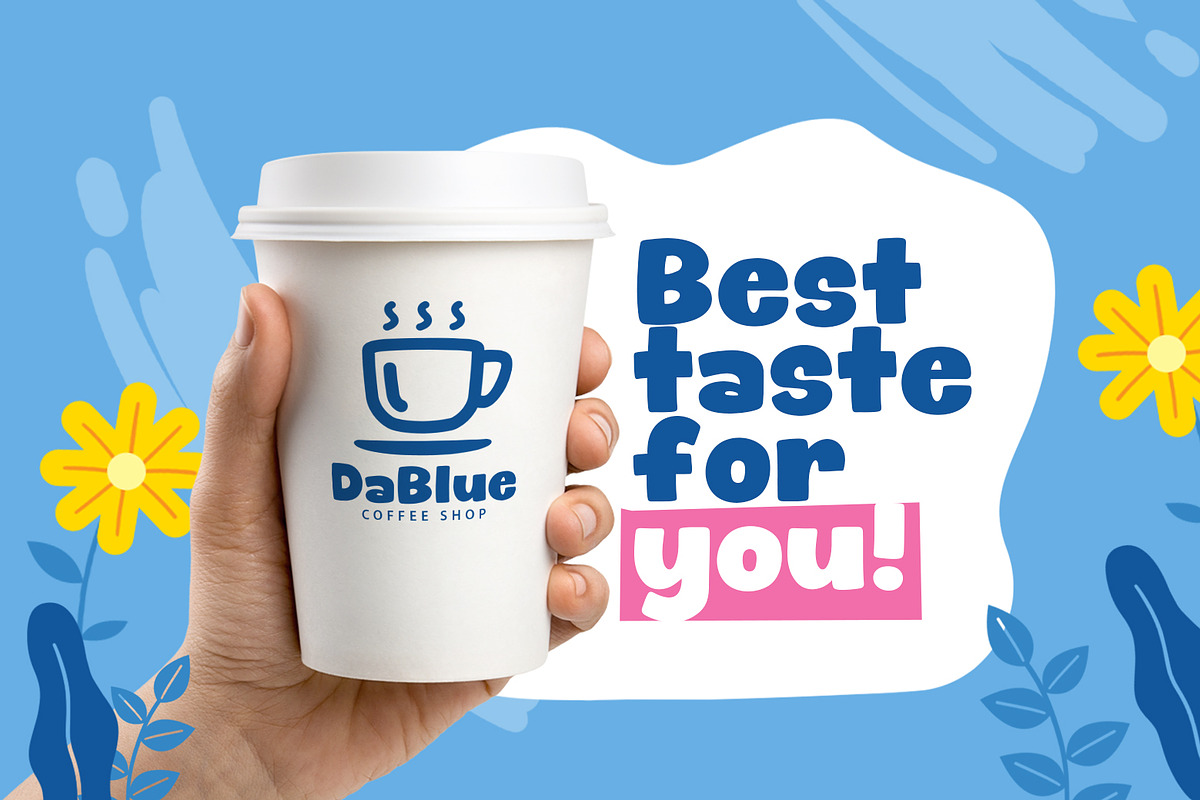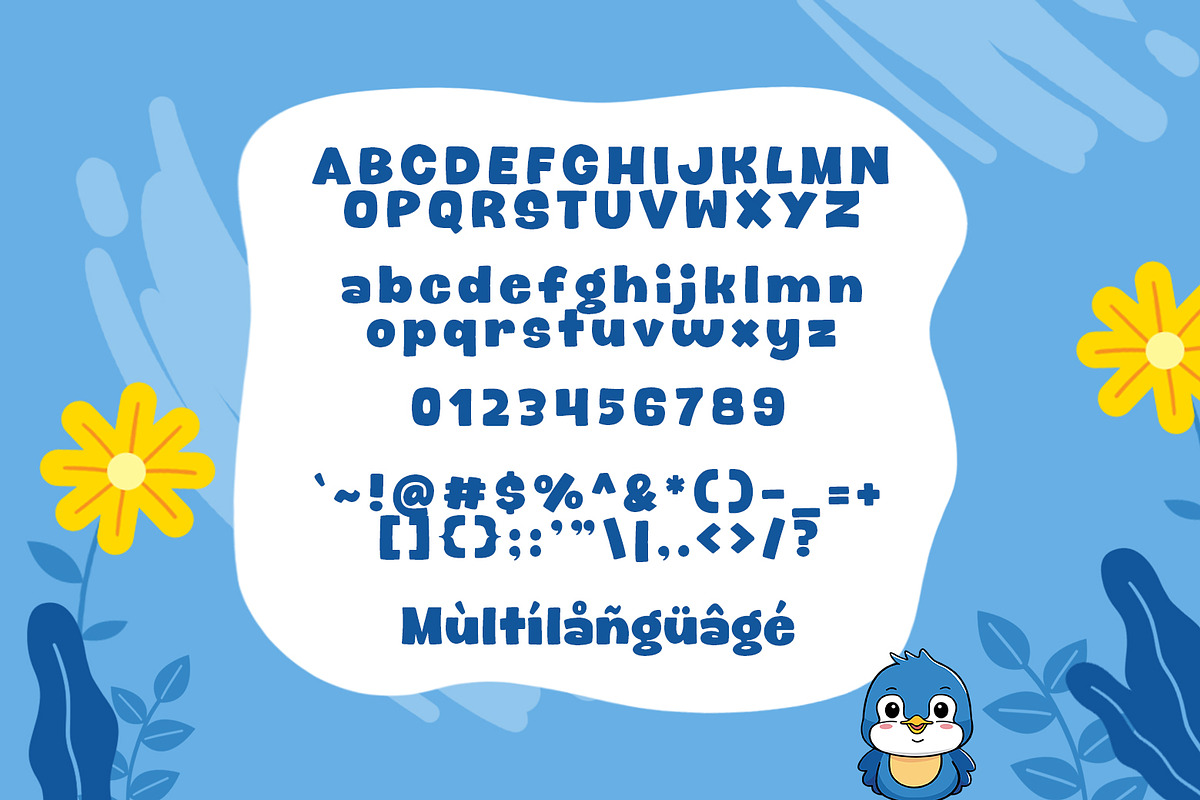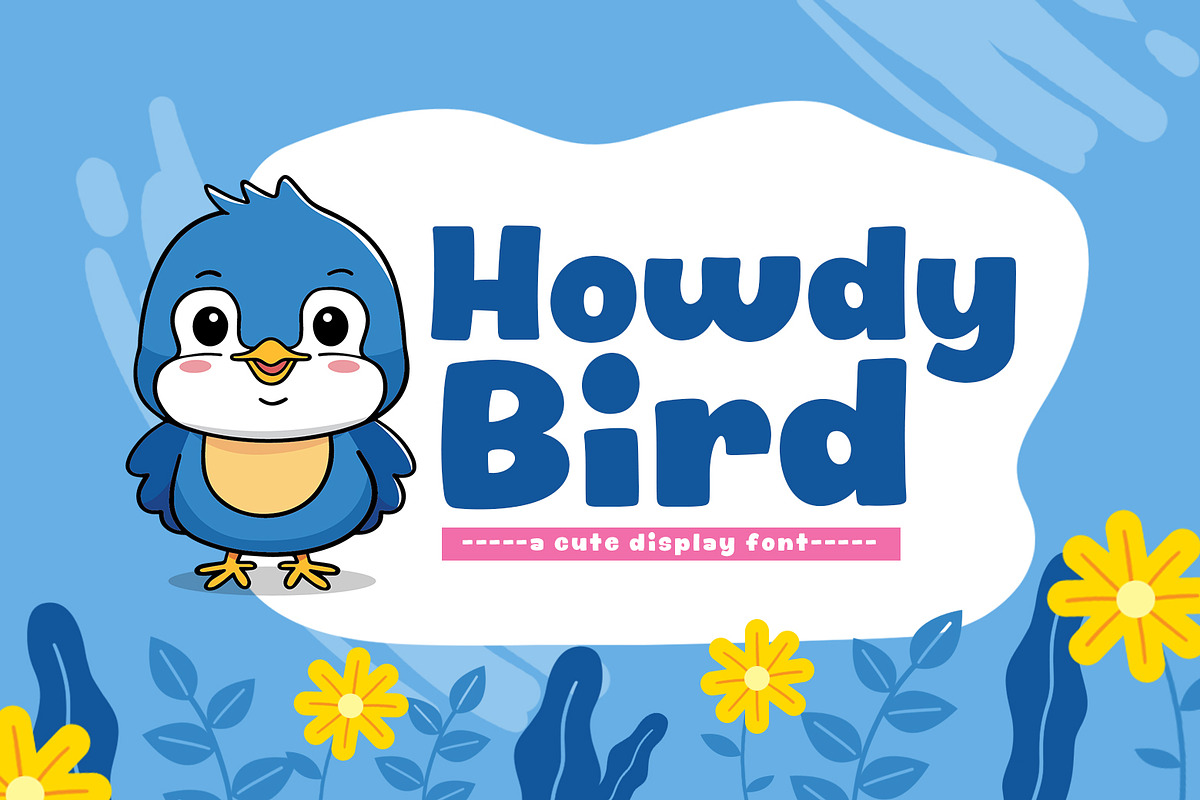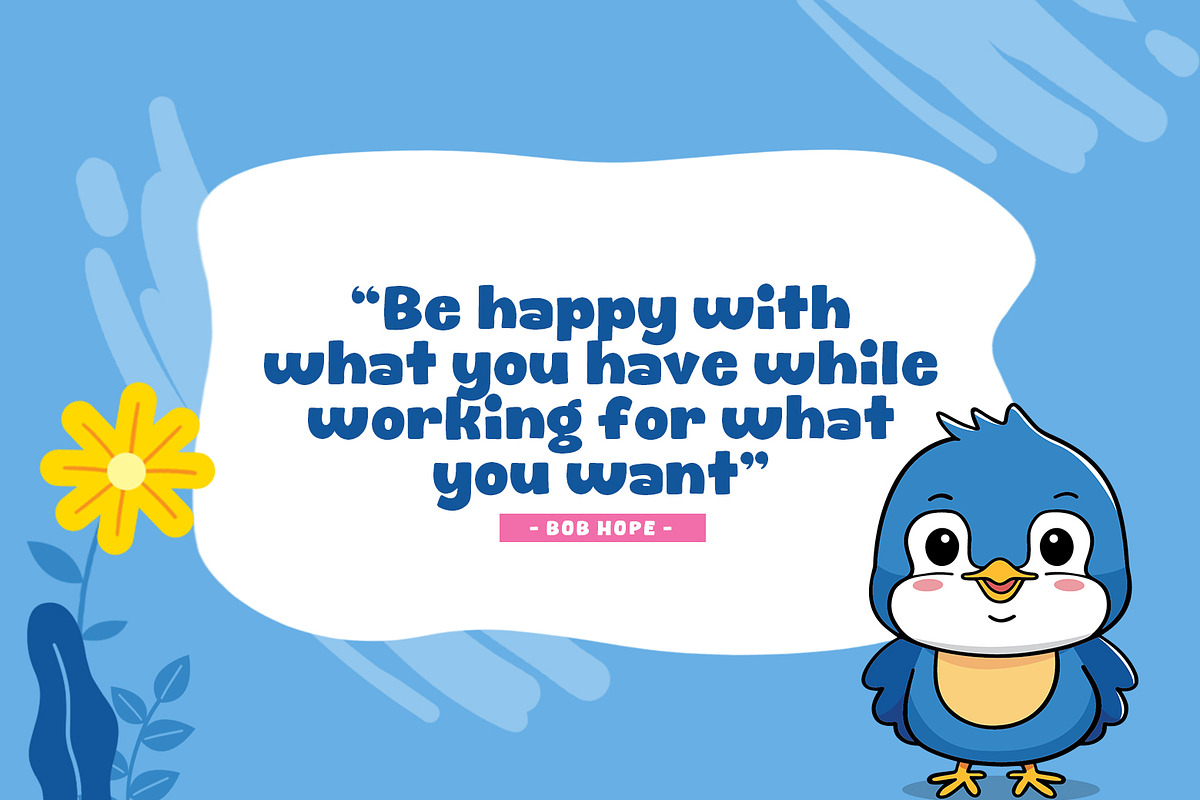
Howdy Bird
Introducing, Howdy Bird font a fun display typeface with cheerful theme for your fun project. Howdy Bird font suitable for logo, branding, greeting card, poster and any design that you create.